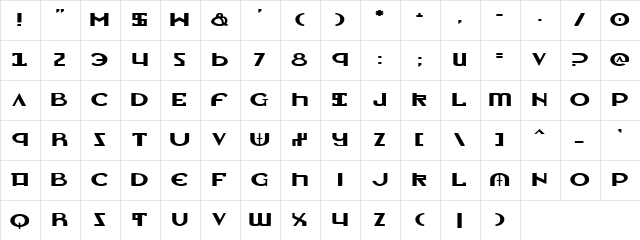
Lionheart Expanded Expanded
Design Context for Lionheart Expanded Typeface
Lionheart Expanded is a composed and adaptable typeface that performs quietly and consistently across a wide range of design contexts.